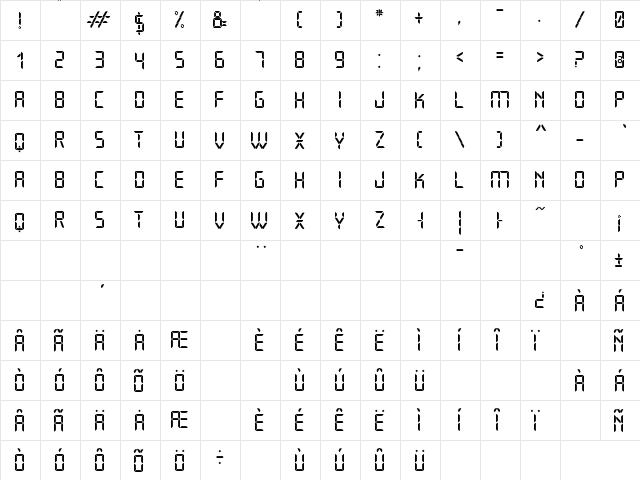
Open 24 Display St Regular
Design Context for Open 24 Display St Typeface
Open 24 Display St is built around its visual character rather than neutral utility — its distinctive forms are designed to make an impression at display sizes.
Font Pairing: Pair with a clean neutral sans-serif for body copy to let Open 24 Display St's character lead without overwhelming the composition.
Pro Tip: Treat Open 24 Display St as the centrepiece of your typographic hierarchy. One strong heading set in a decorative face can carry an entire layout.